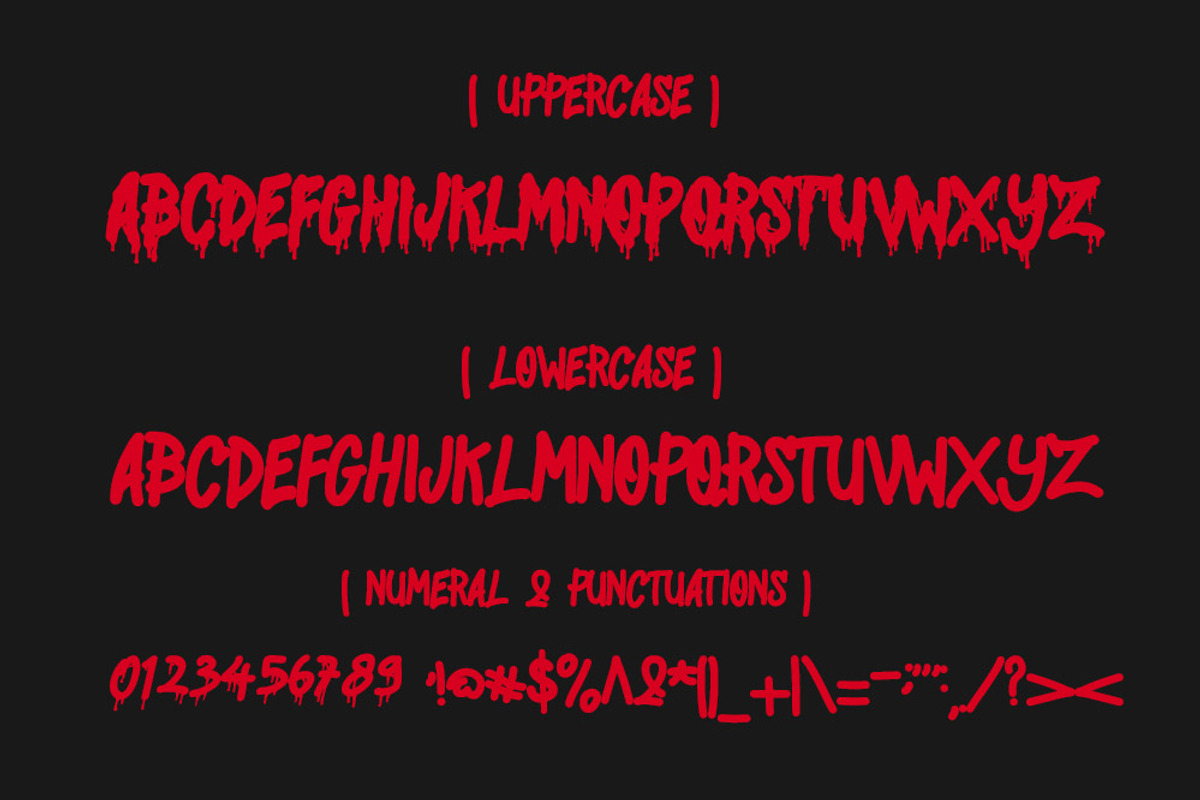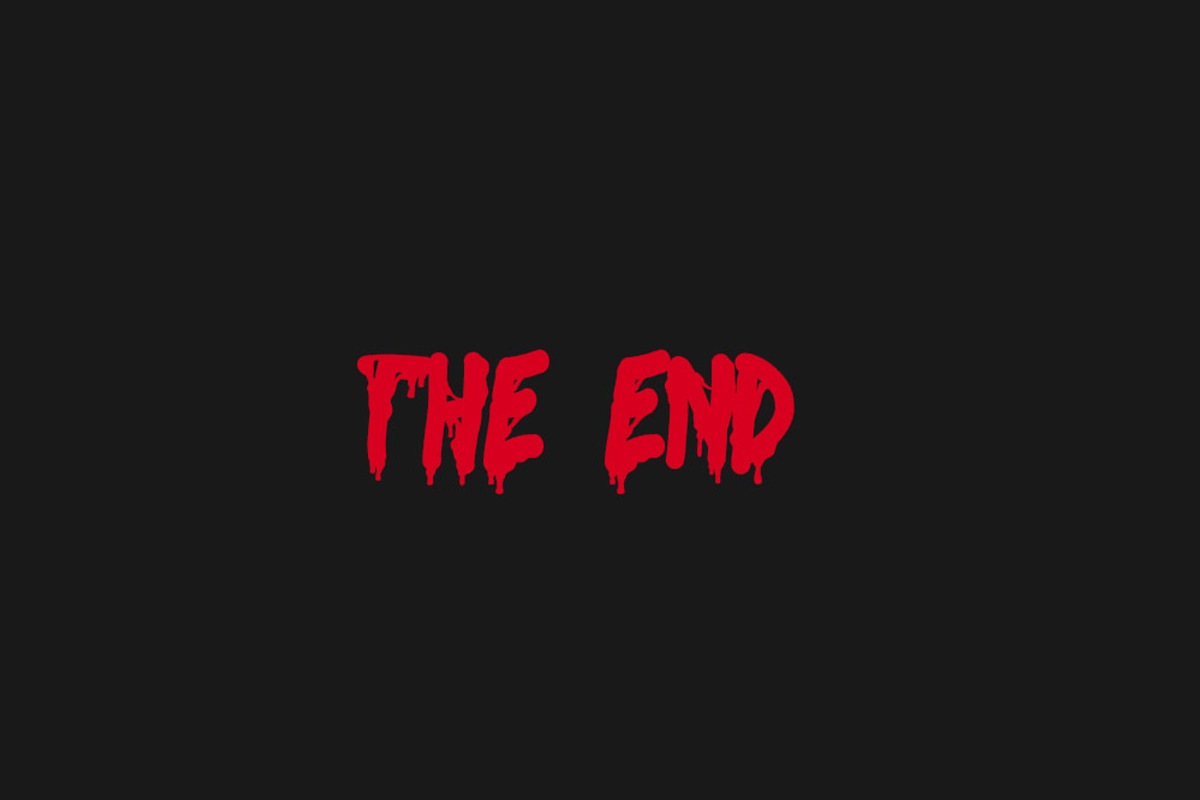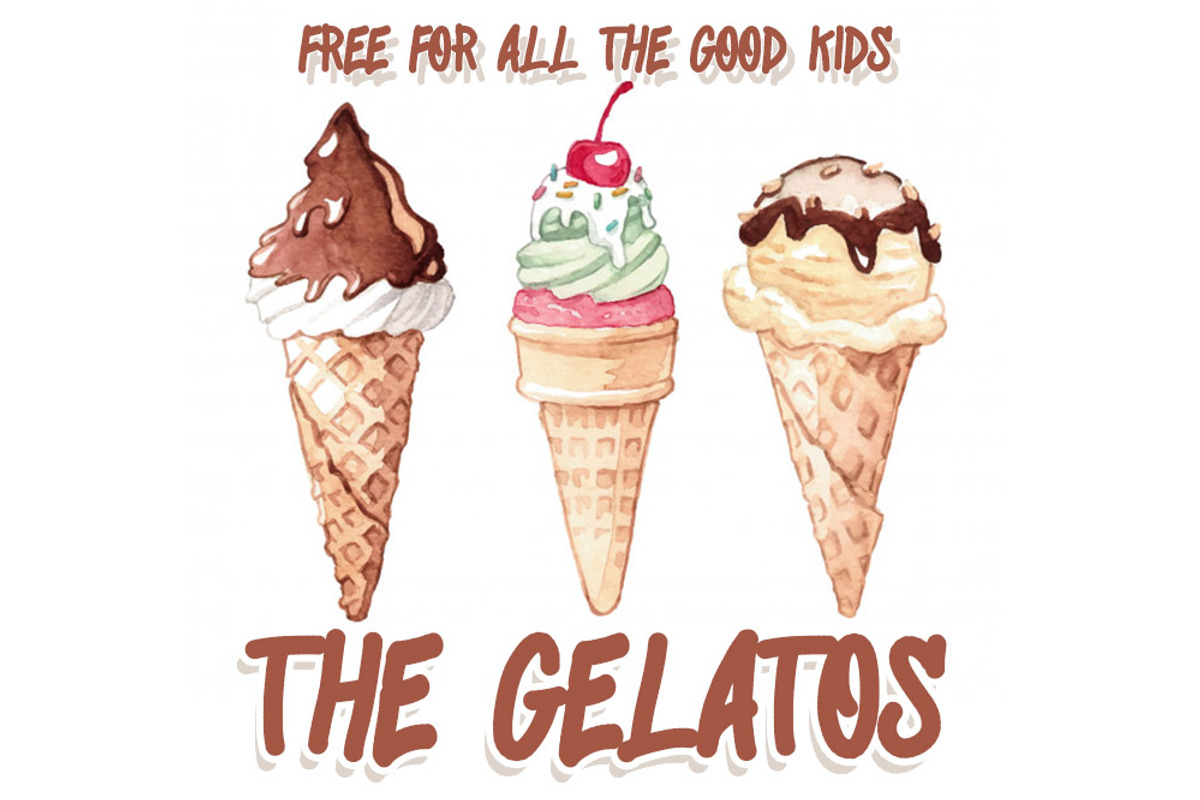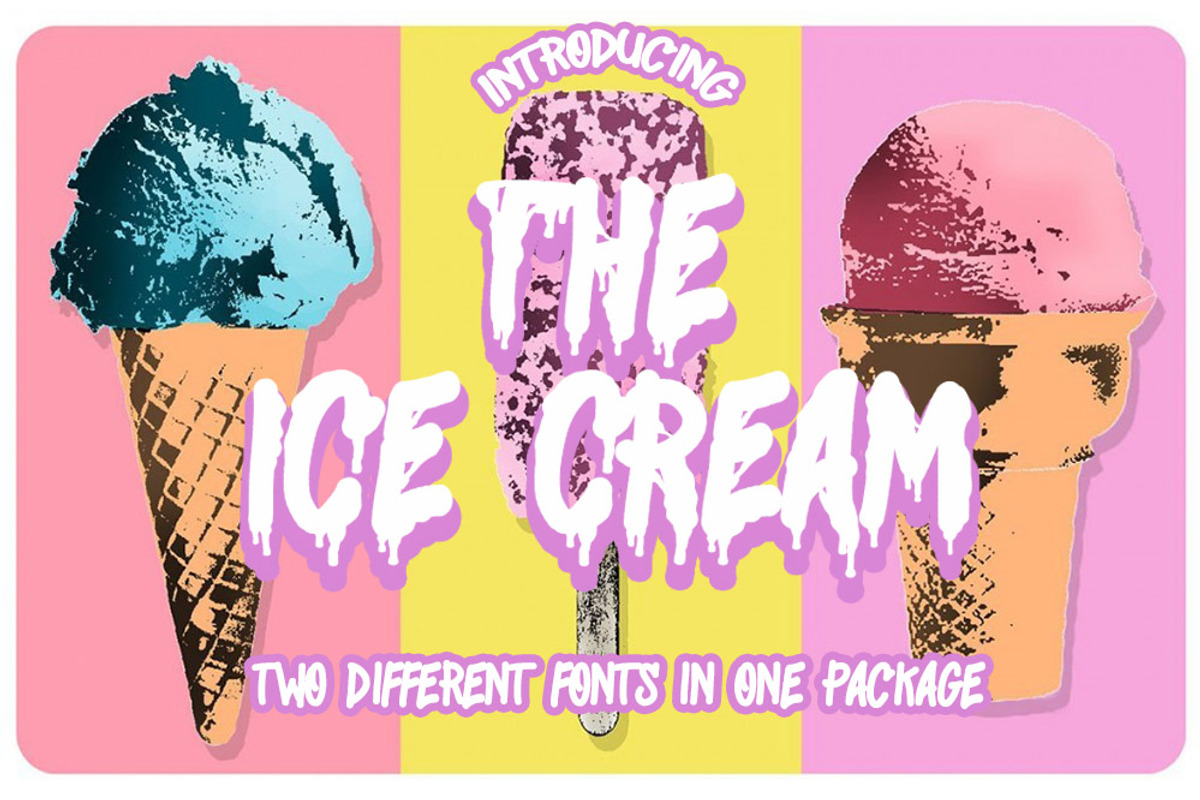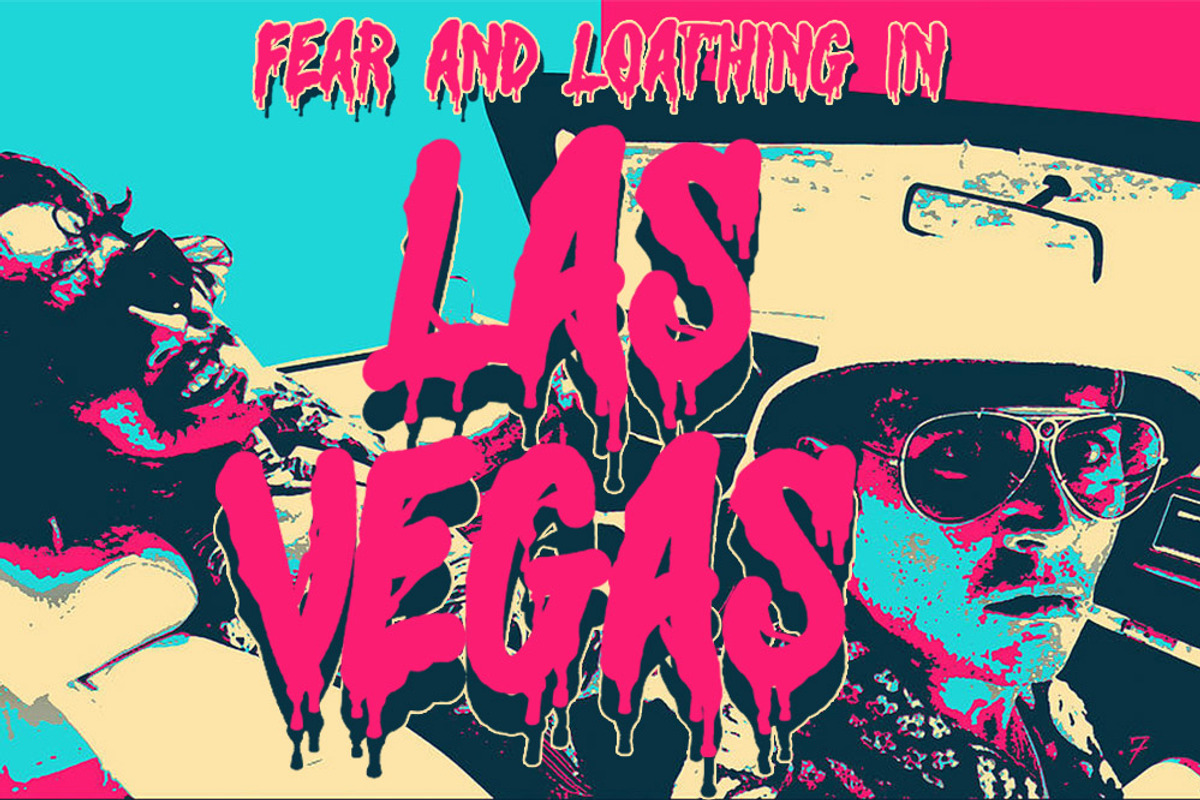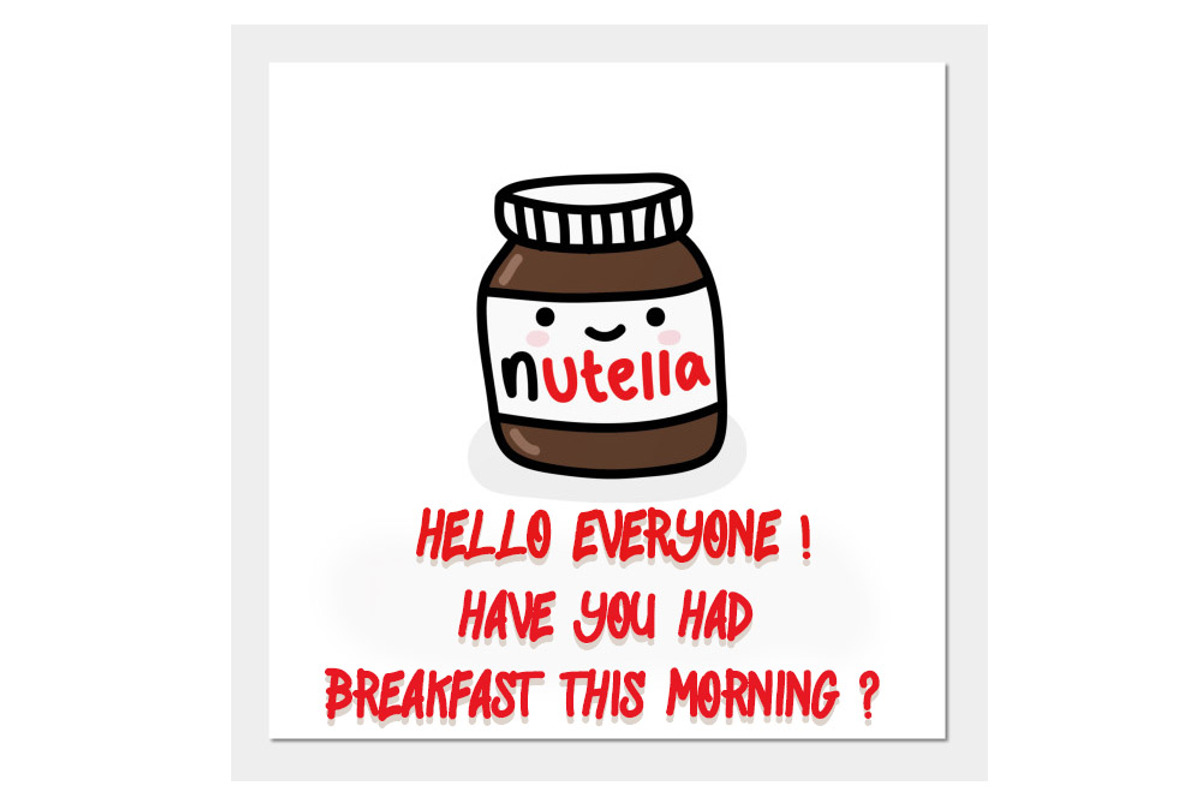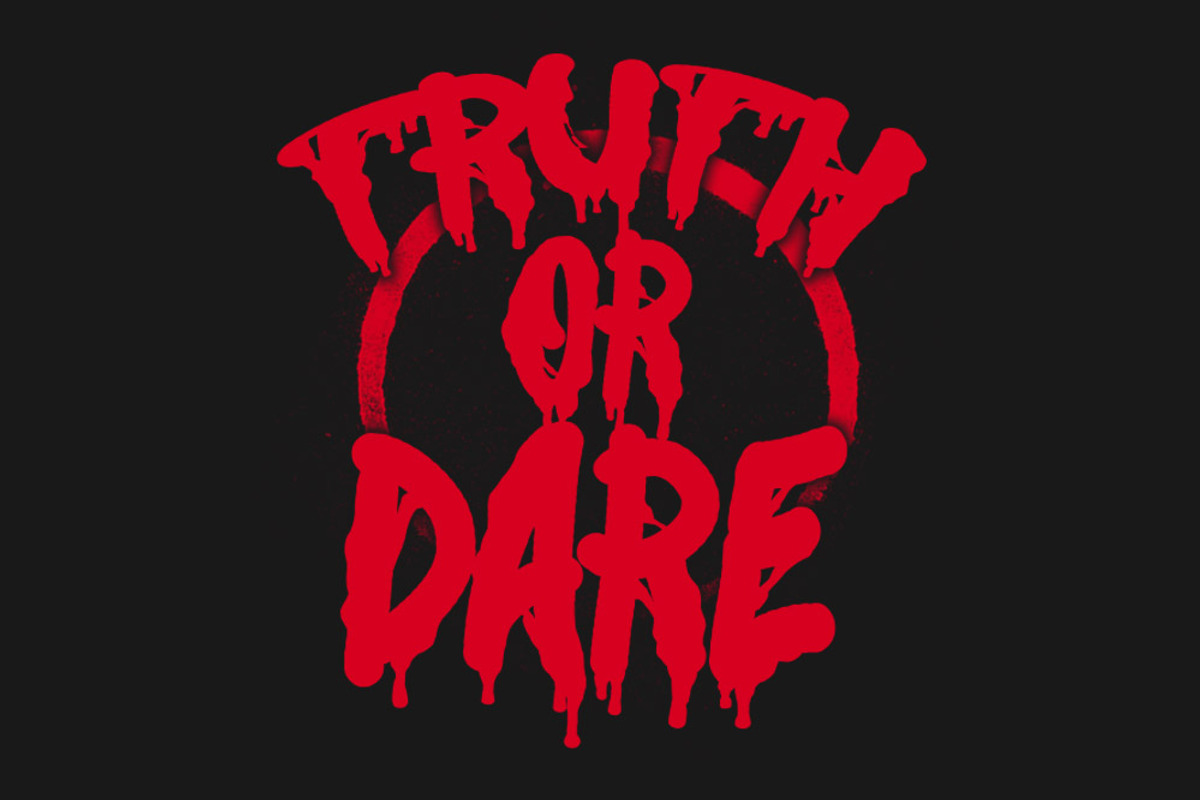
THE ICE CREAM (2 FONTS IN 1 PACKAGE)
hello everyone, introduce the ice cream two fonts in one package. No need to bother trying to use two different fonts because this font product already has both. consists of uppercase and lowercase this font has two different versions. uppercase contains melted fonts and lowercase contains clean fonts. very easy to use and very suitable for a variety of products such as branding, logos, clothing and others.
features :
- uppercase
- lowercase
- numeral & punctuations
- melted fonts
- cleaning fonts